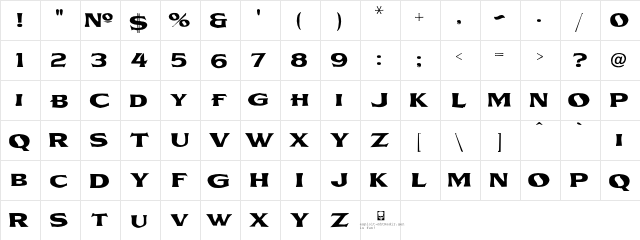
LHF Gilmore REGULAR Regular
| Foundry | John Studden & Letterhead Fonts |
| Designer | John Studden & Letterhead Fonts. |
Design Context for LHF Gilmore REGULAR Typeface
LHF Gilmore REGULAR offers clean, dependable letterforms without strong stylistic allegiance, making it a practical choice for designers who need flexibility.